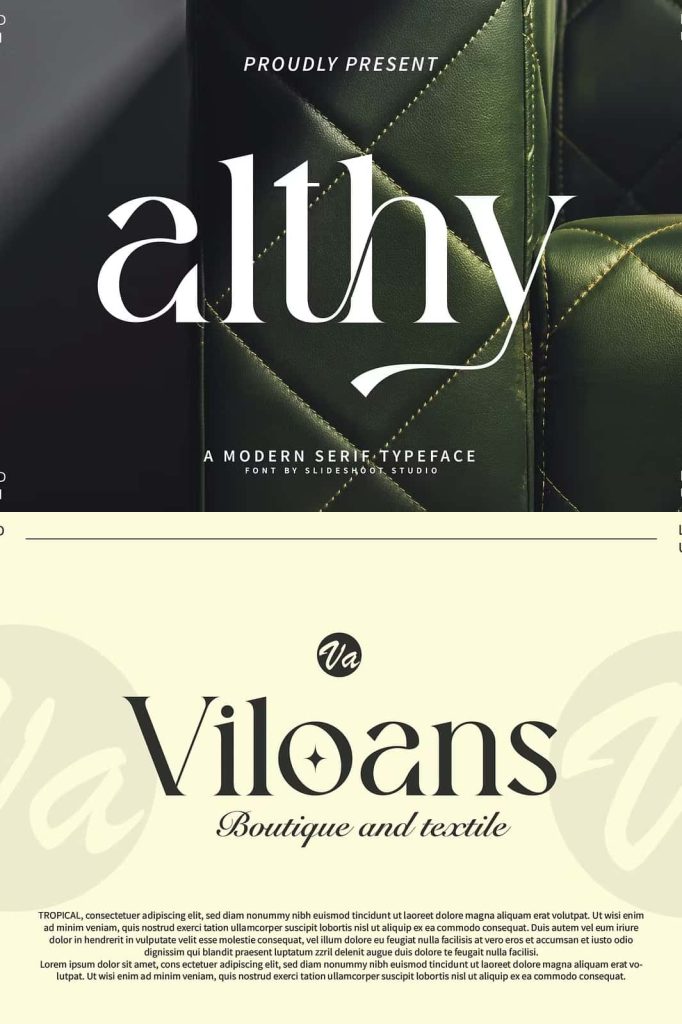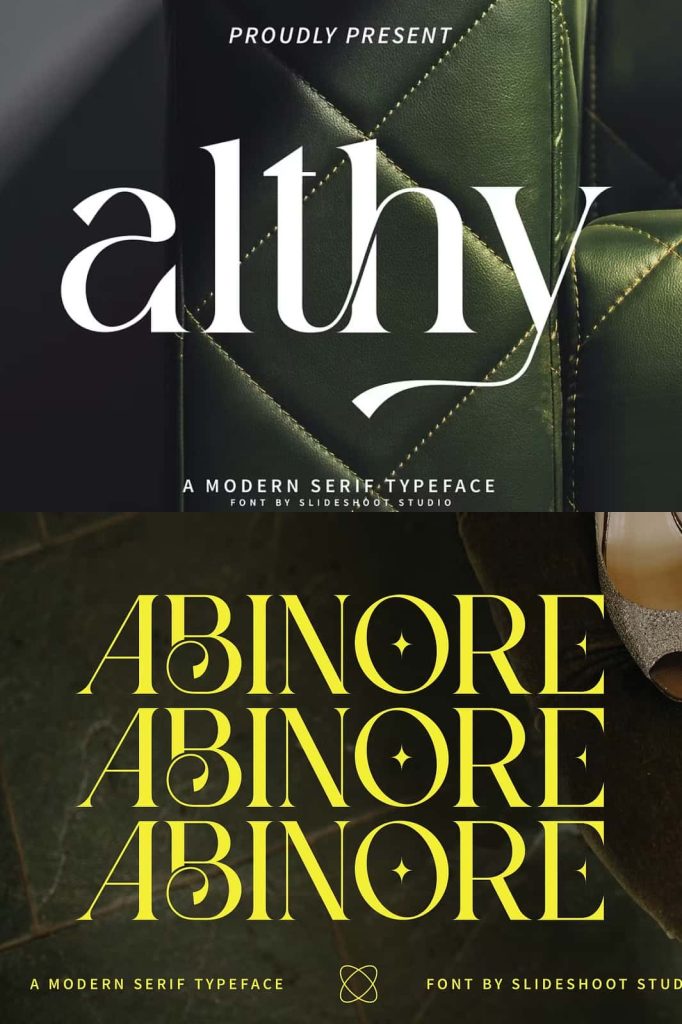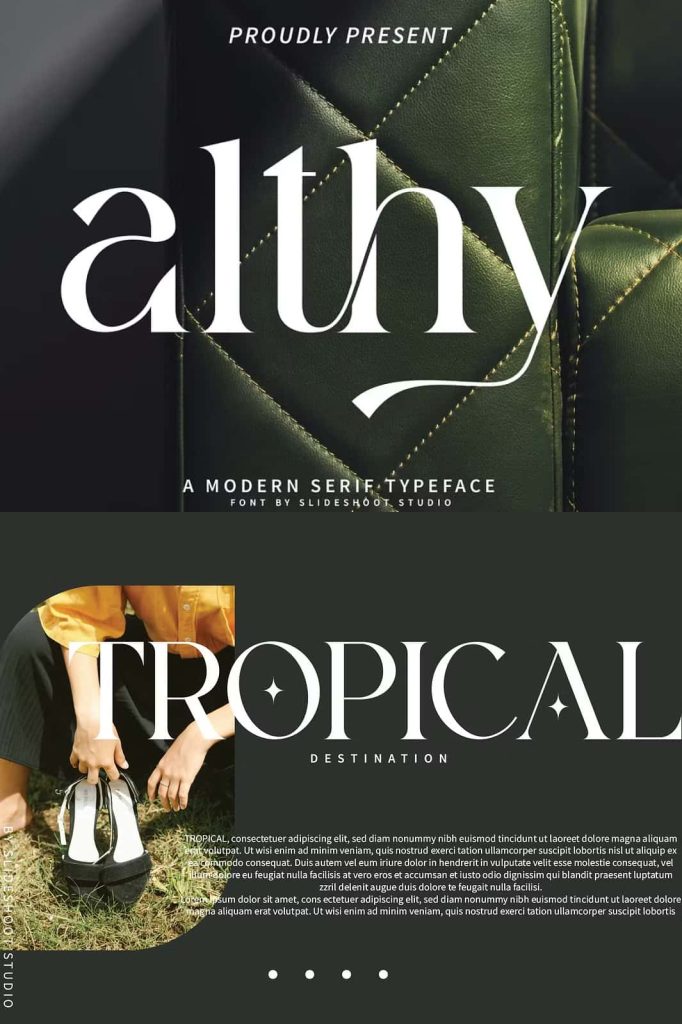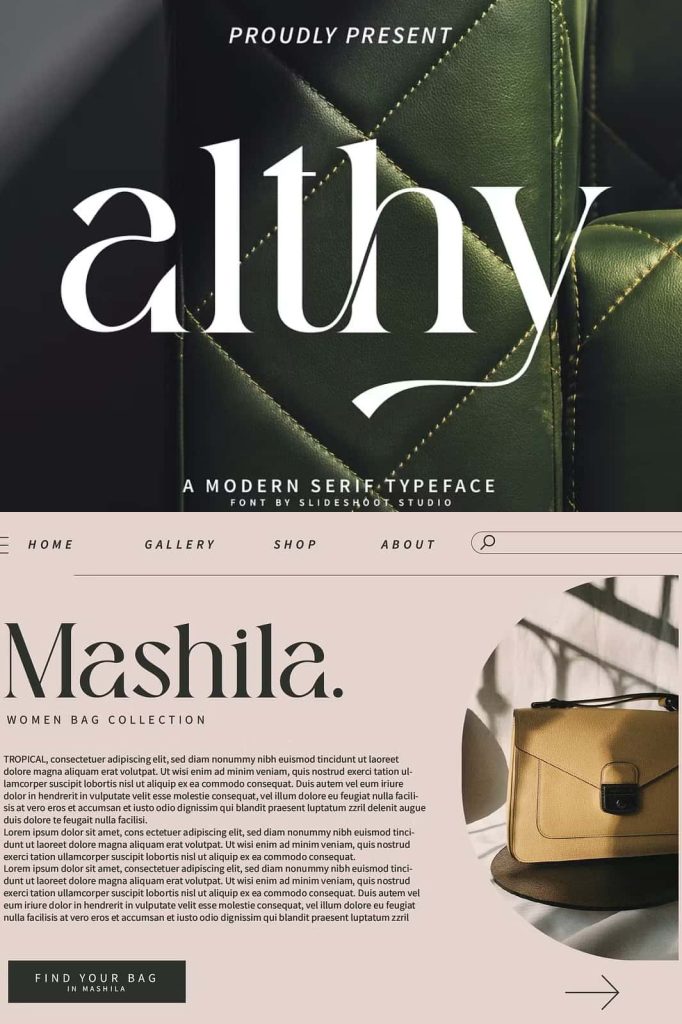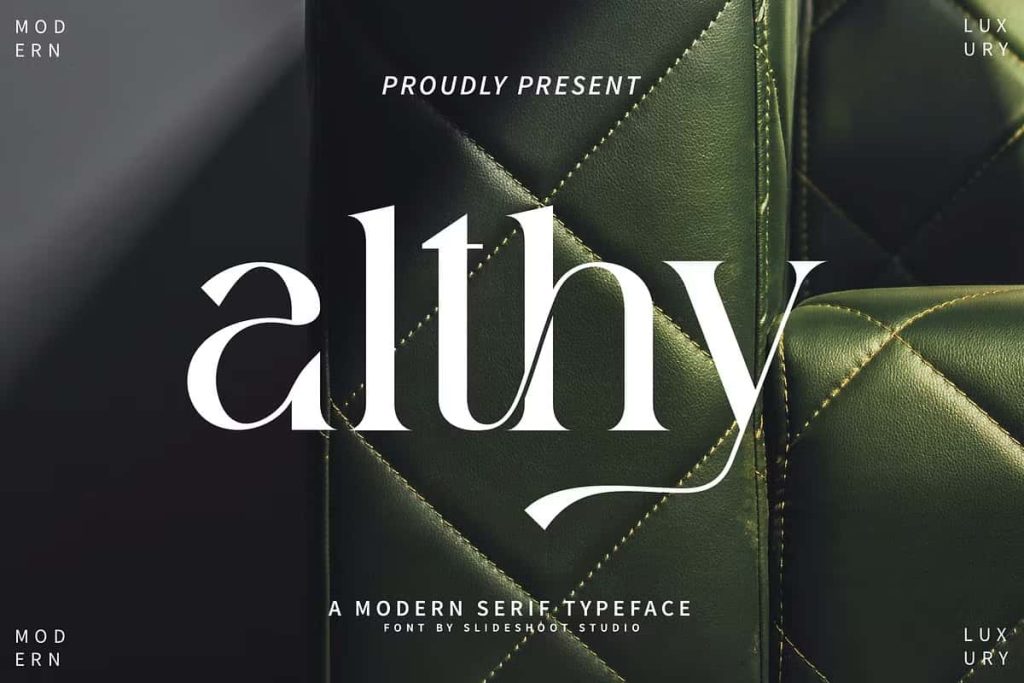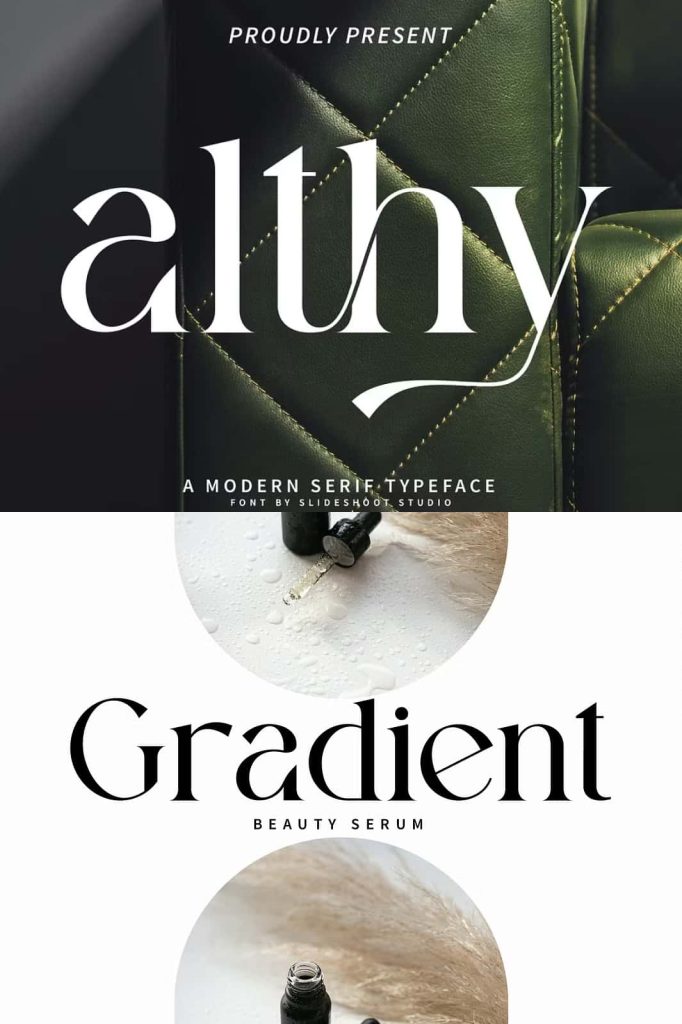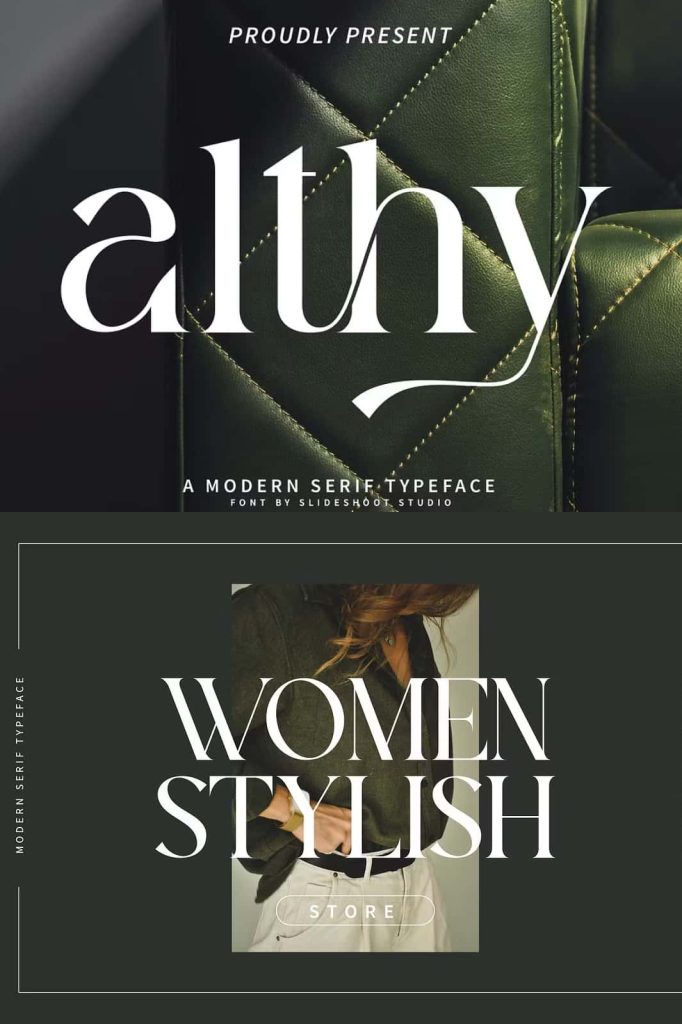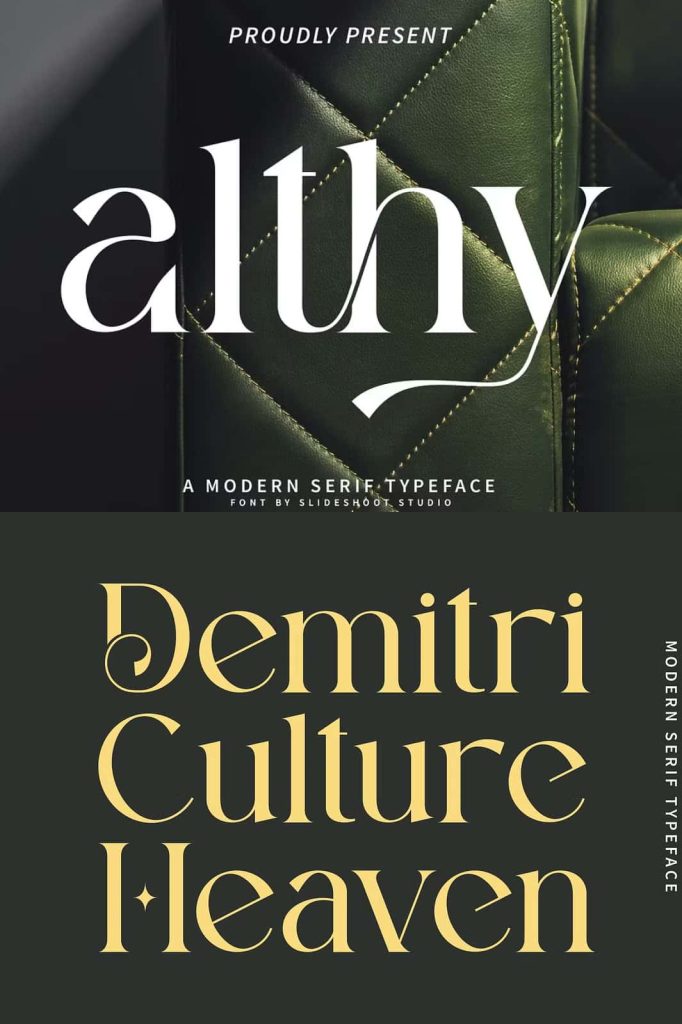
Althy Serif is a modern and classy Serif font, he has a beautiful character. It is suitable to be combined with invitation card design, destroyer logo, film title, film name, business card, book title, name brand and various other designs.